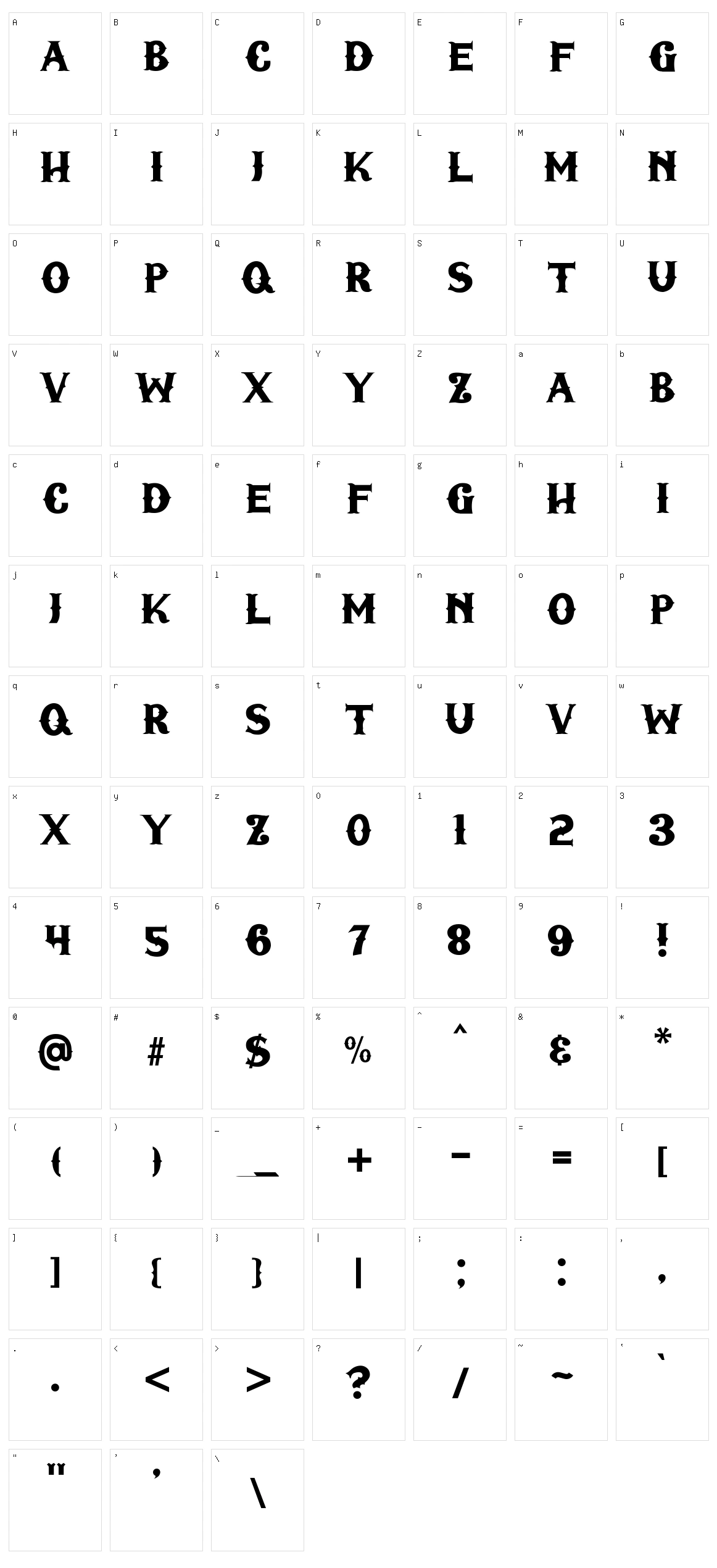
Many moons ago the inspiration for this font hit me while i was feasting on a glorious rack of ribs. It's undergone a few changes since 2000 (other than the name) but all positive. Fridays now
features a full character set with basic punctuation, improved drawing, and kerning added. Lowercase letters are the same as uppercase. The underscore will get you a festive little stripe. Press
its a few times for large one.